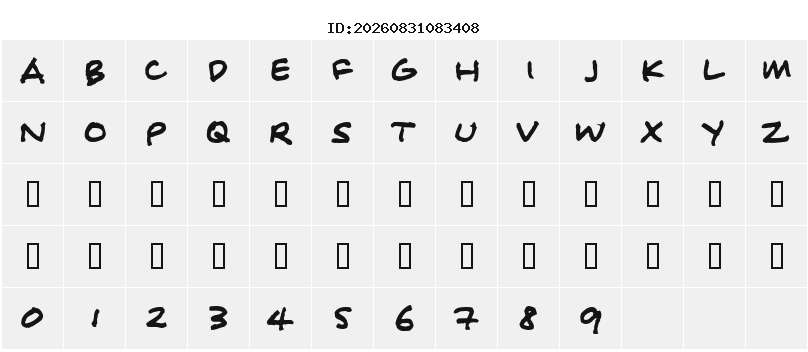
Telegraph Preview
• Font Name: Telegraph
• Font Style: Lazy
• Font ID: Macromedia Fontographer 4.1.5 Telegraph Lazy
• Full Font Name: Telegraph Lazy
• Version: Macromedia Fontographer 4.1.5 29/7/98
• PostScript Name: TelegraphLazy
• Character Count: 55
About Telegraph.ttf
Telegraph.ttf is a modern, elegant sans-serif font designed for ultimate readability and visual harmony. Perfect for branding, headlines, web design, and print materials.